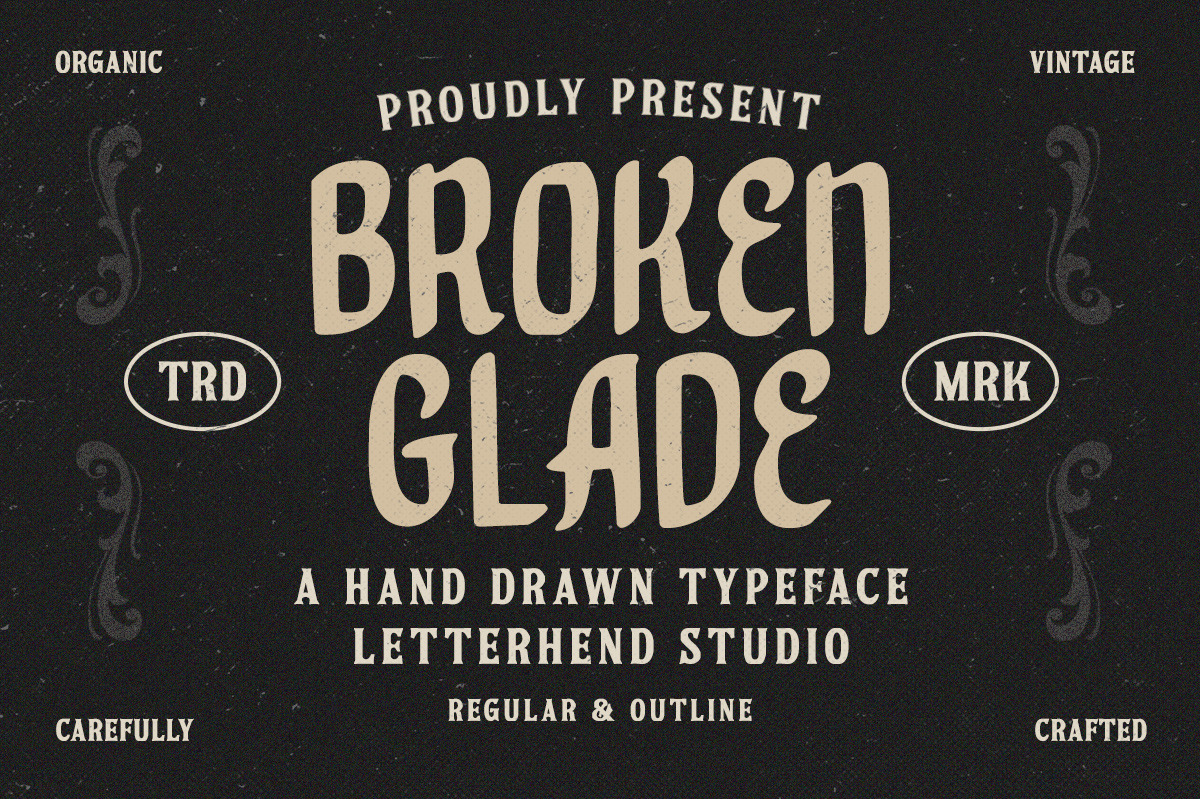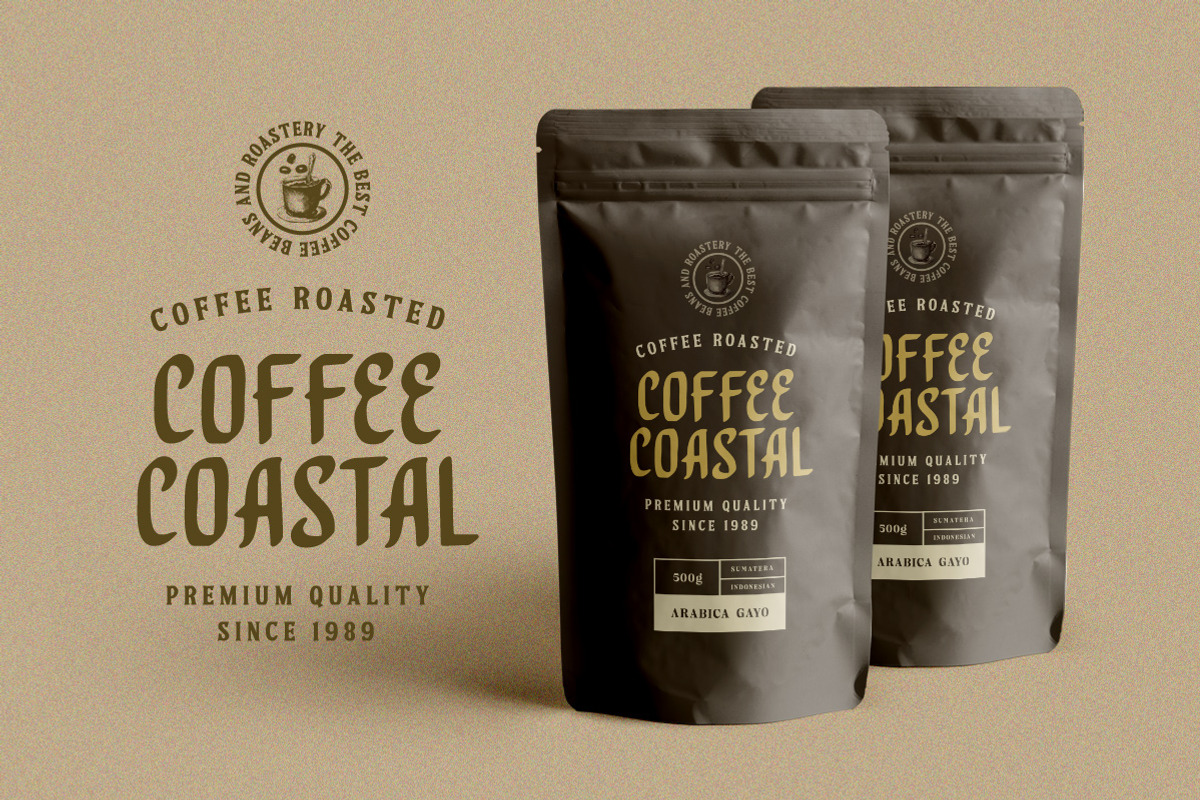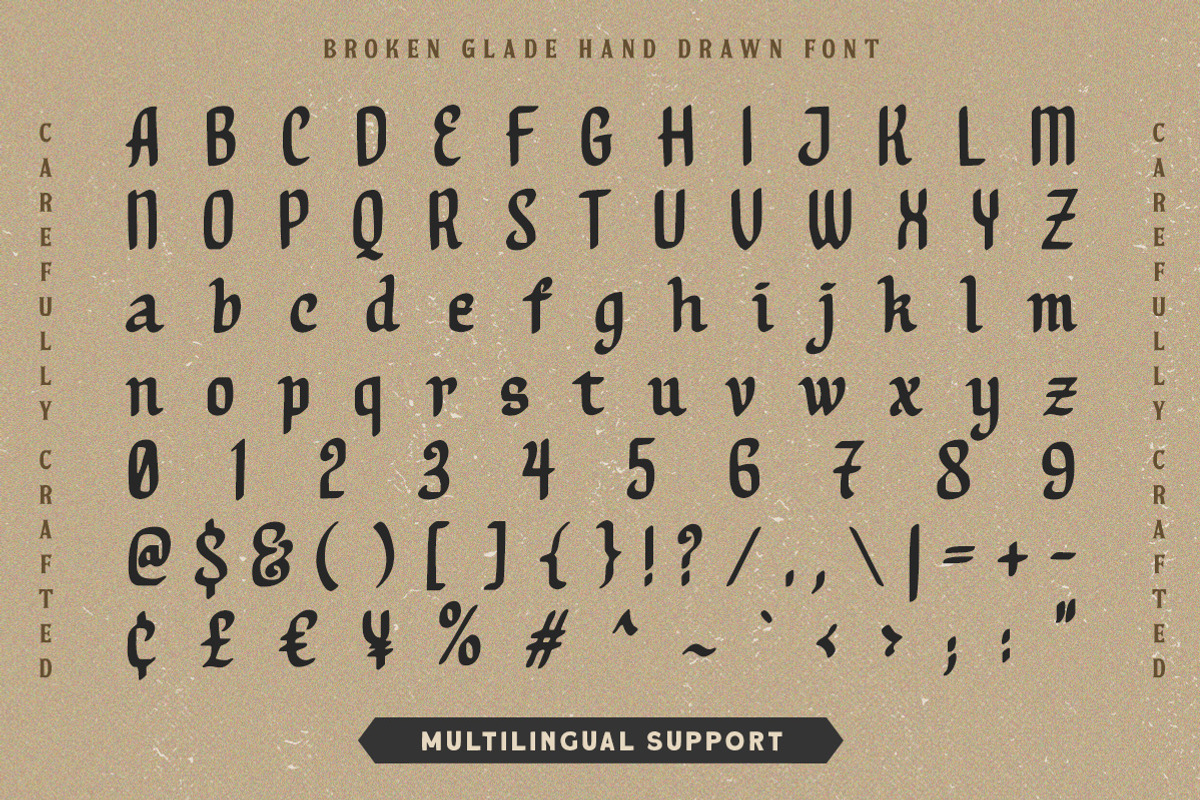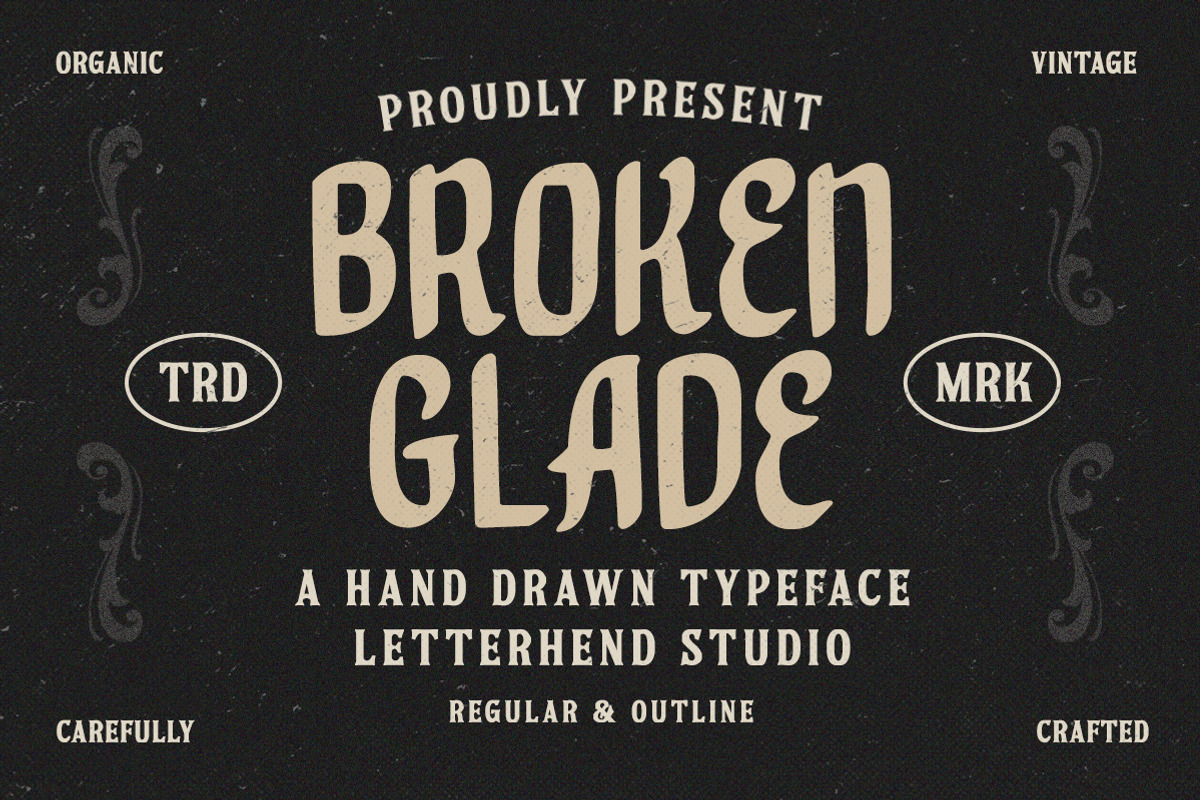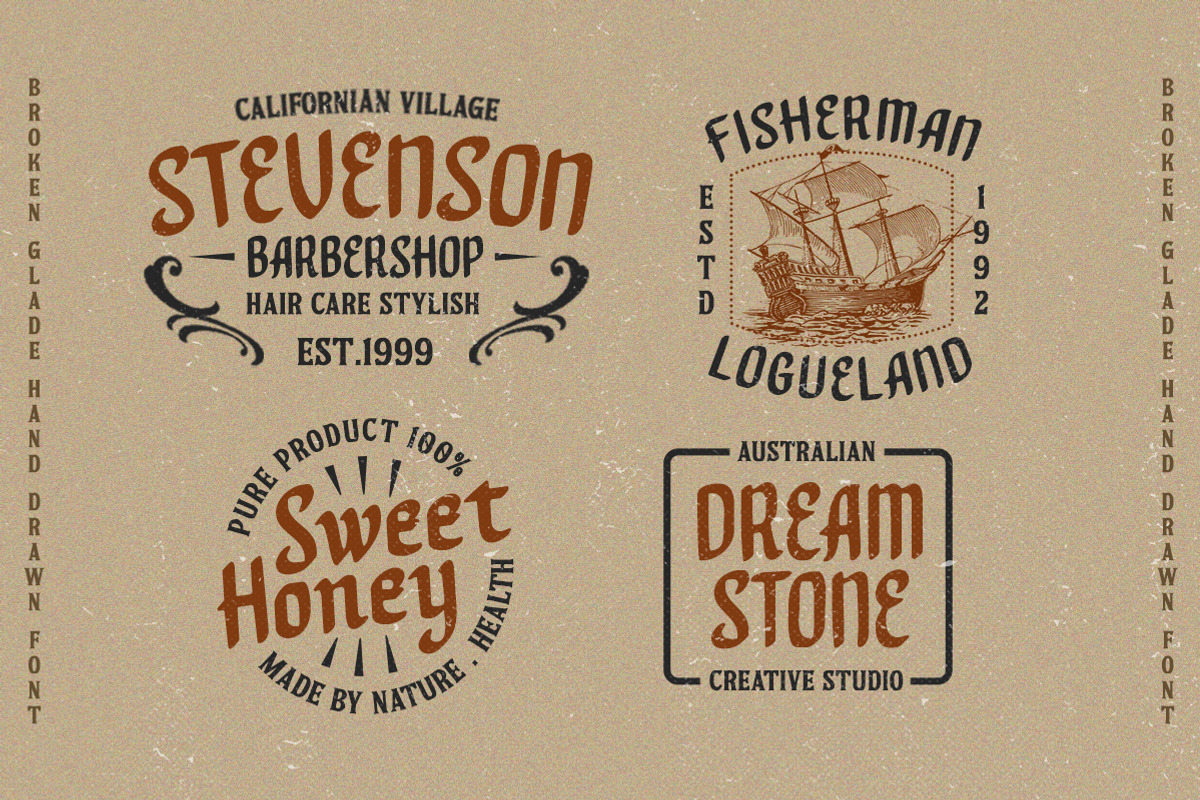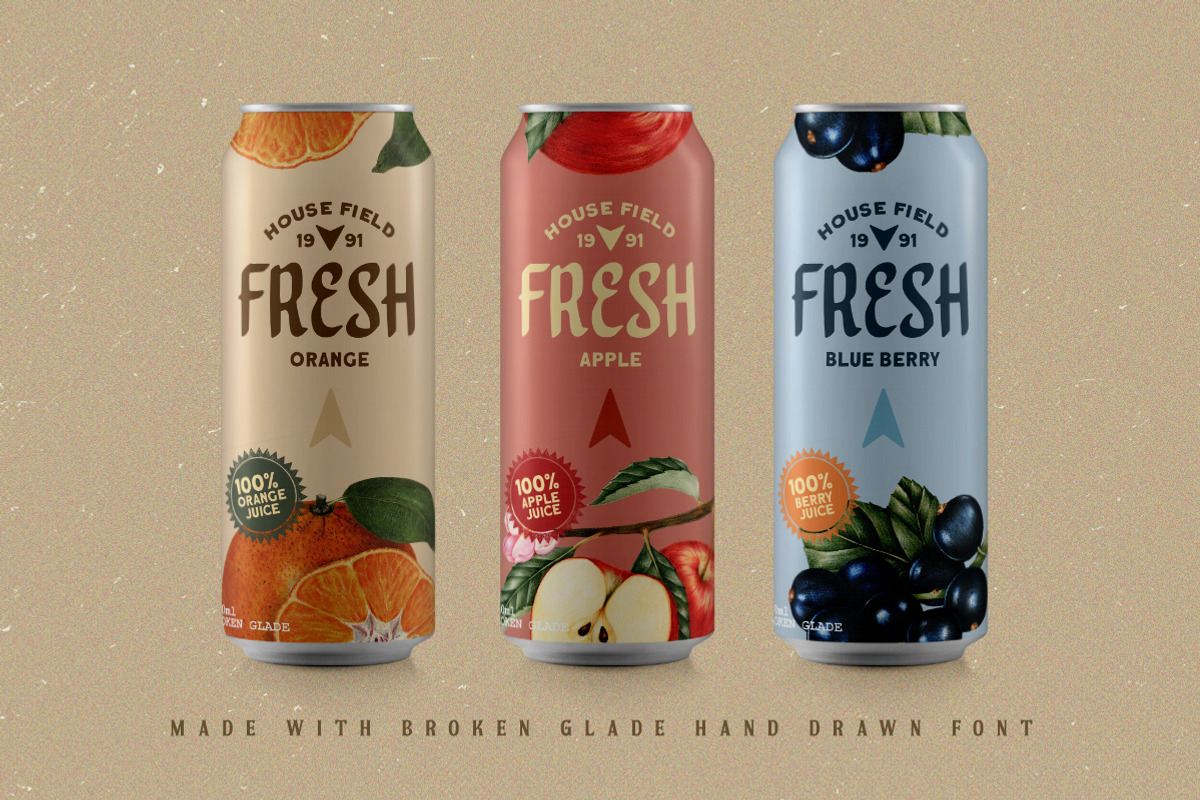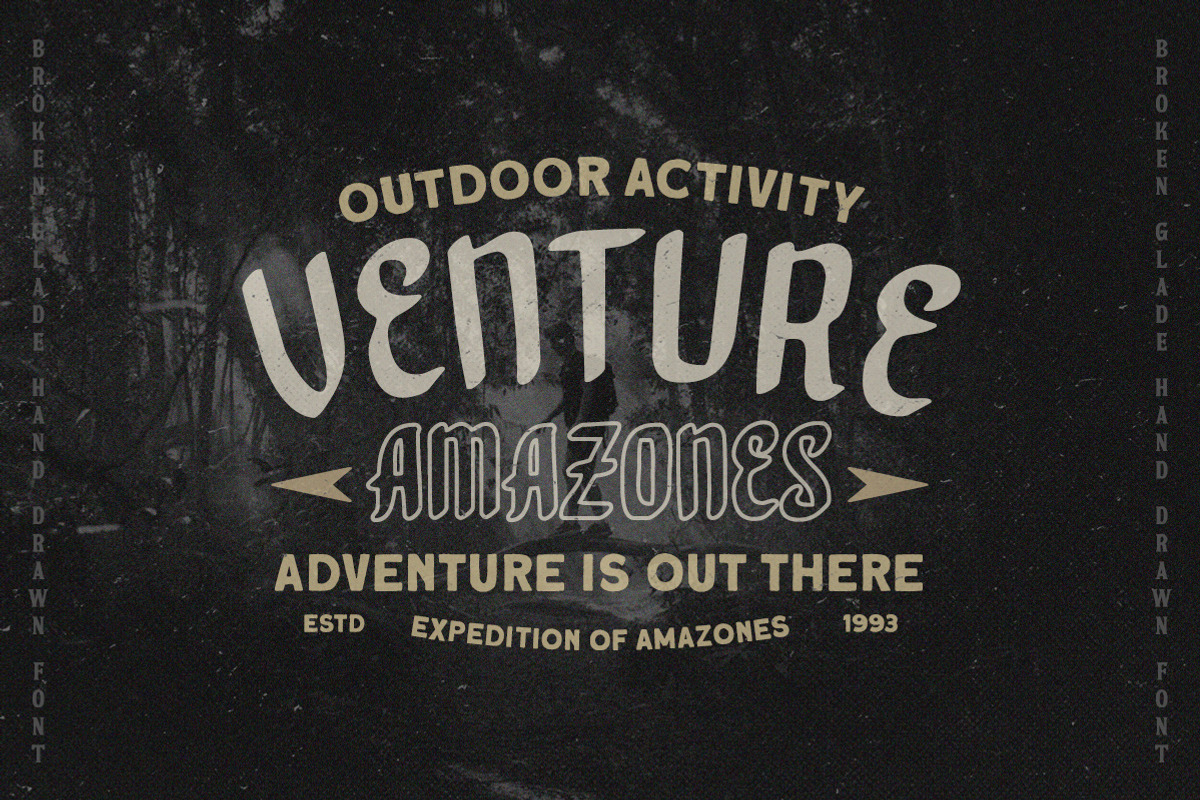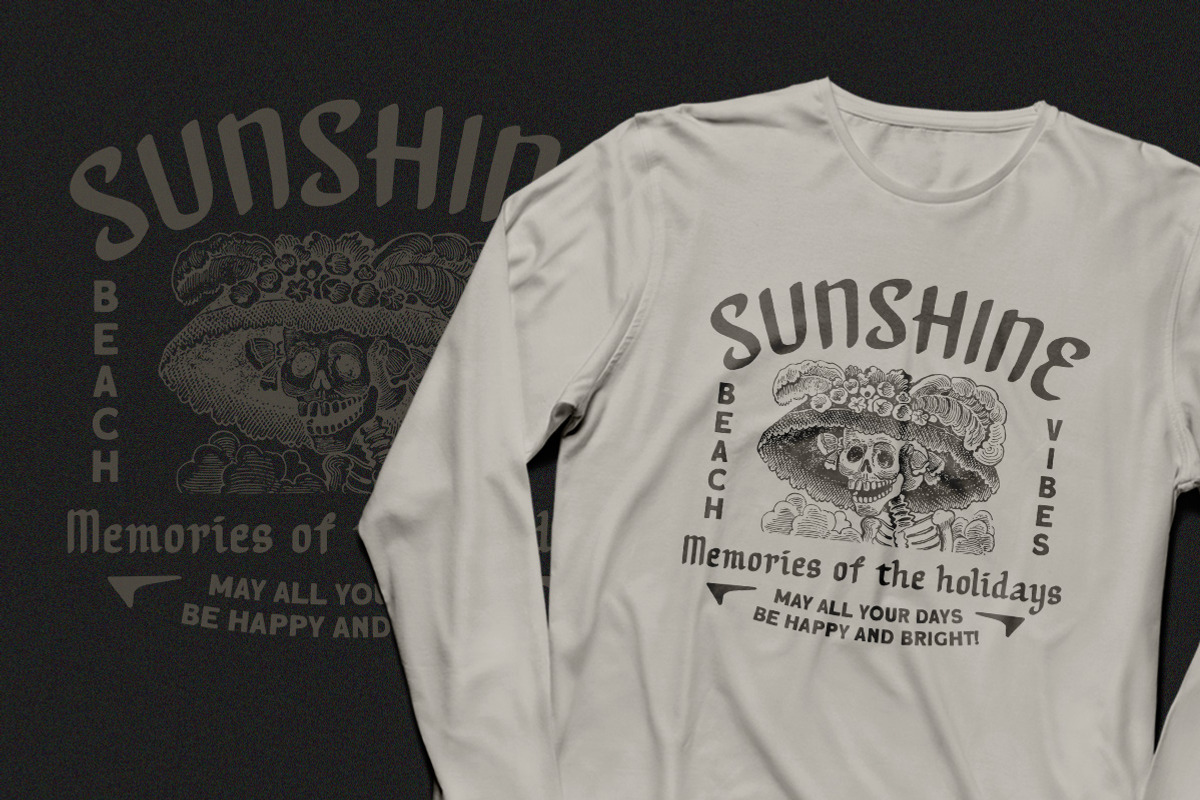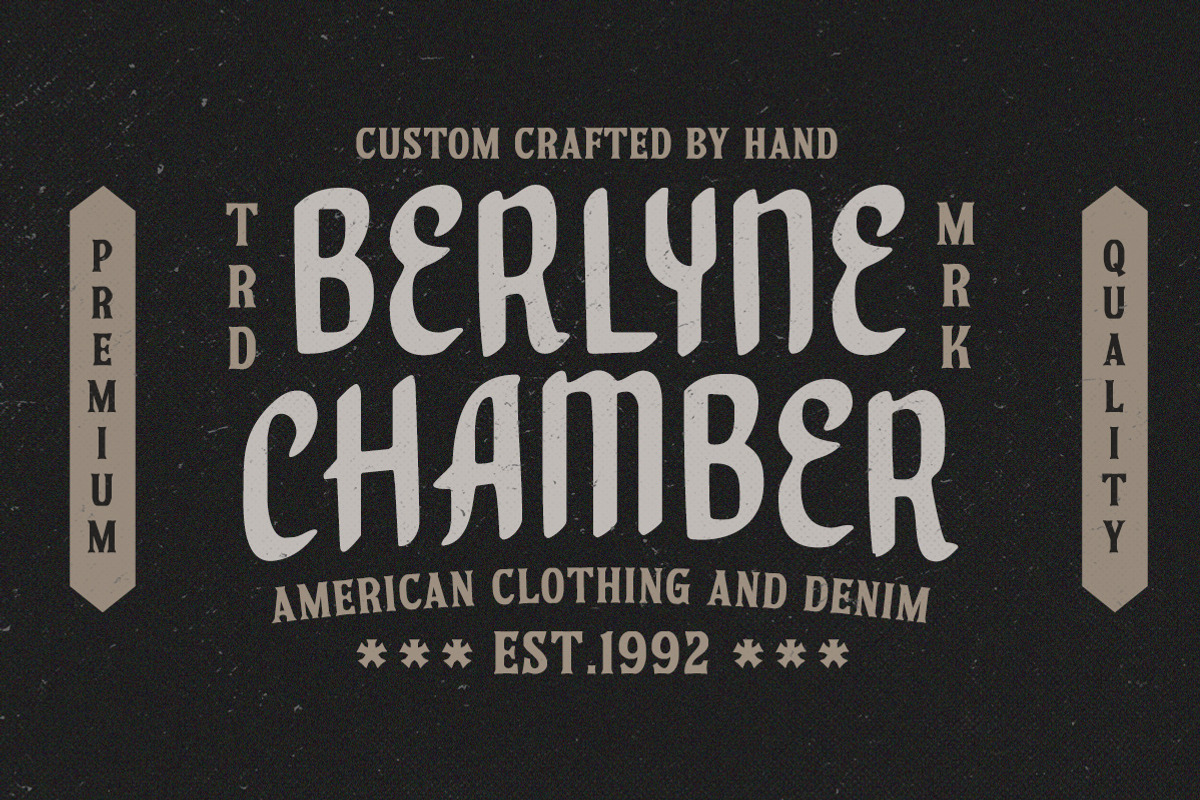
Broken Glade - Hand Drawn Typeface
Broken Glade is a classic hand drawn with vintage looks!. This unique font has 2 styles : regular and outline. This font perfectly made to be applied especially in logo, and the other various formal forms such as invitations, labels, logos, magazines, books, greeting / wedding cards, packaging, fashion, make up, stationery, novels, labels or any type of advertising purpose.